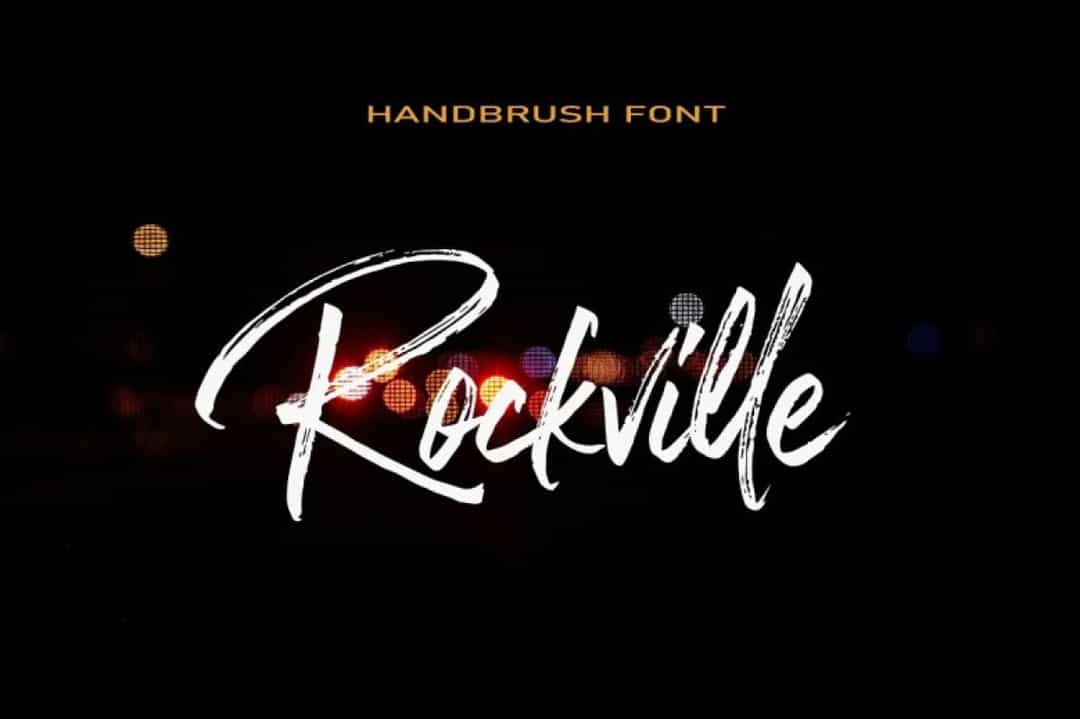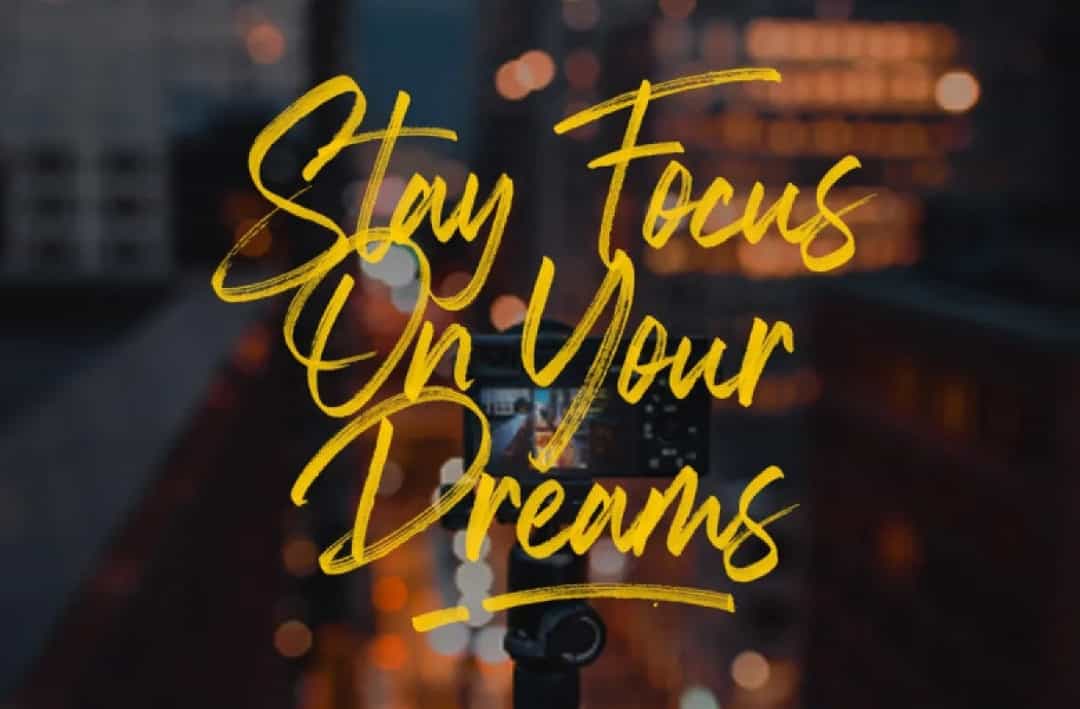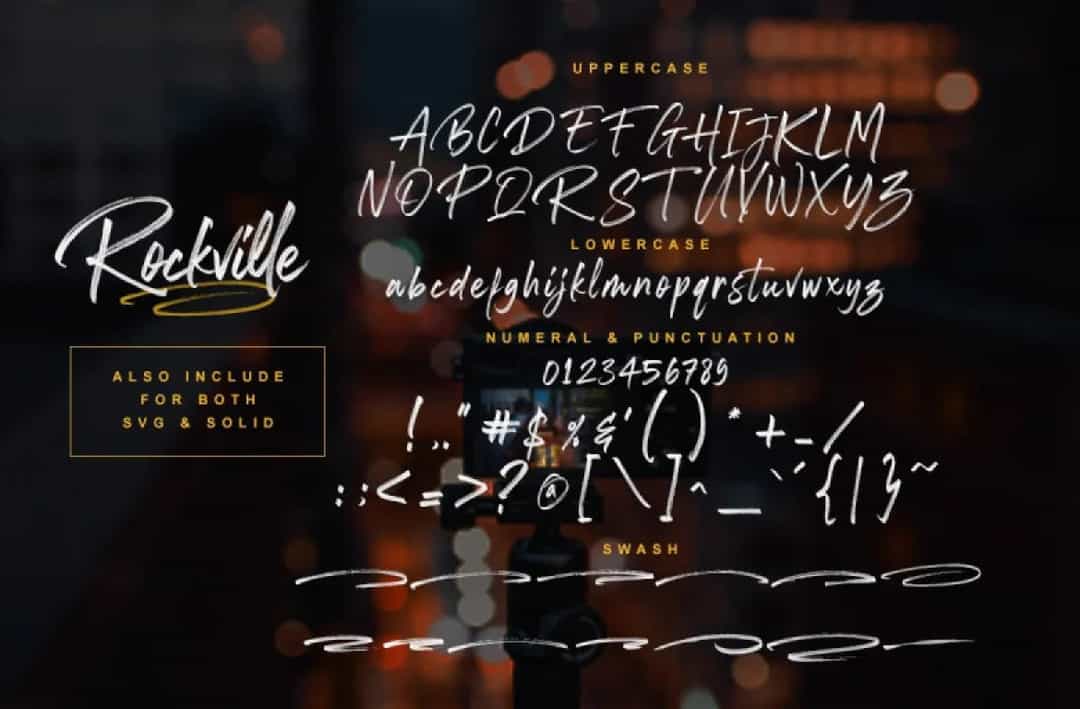
Rockville Font is a handwritten brush script font with natural movement scratch, it is created and published by the most talented designer Ardian Nuvianto. Introducing Rockville Font! It’s a very vibrant and powerful color font, which will help to make any design project very noticeable. Ideally suitable for logos, weddings, social media, ads, product and package designs, labels, photography, watermarks, invitations, stationery, and any project requiring handwriting style.